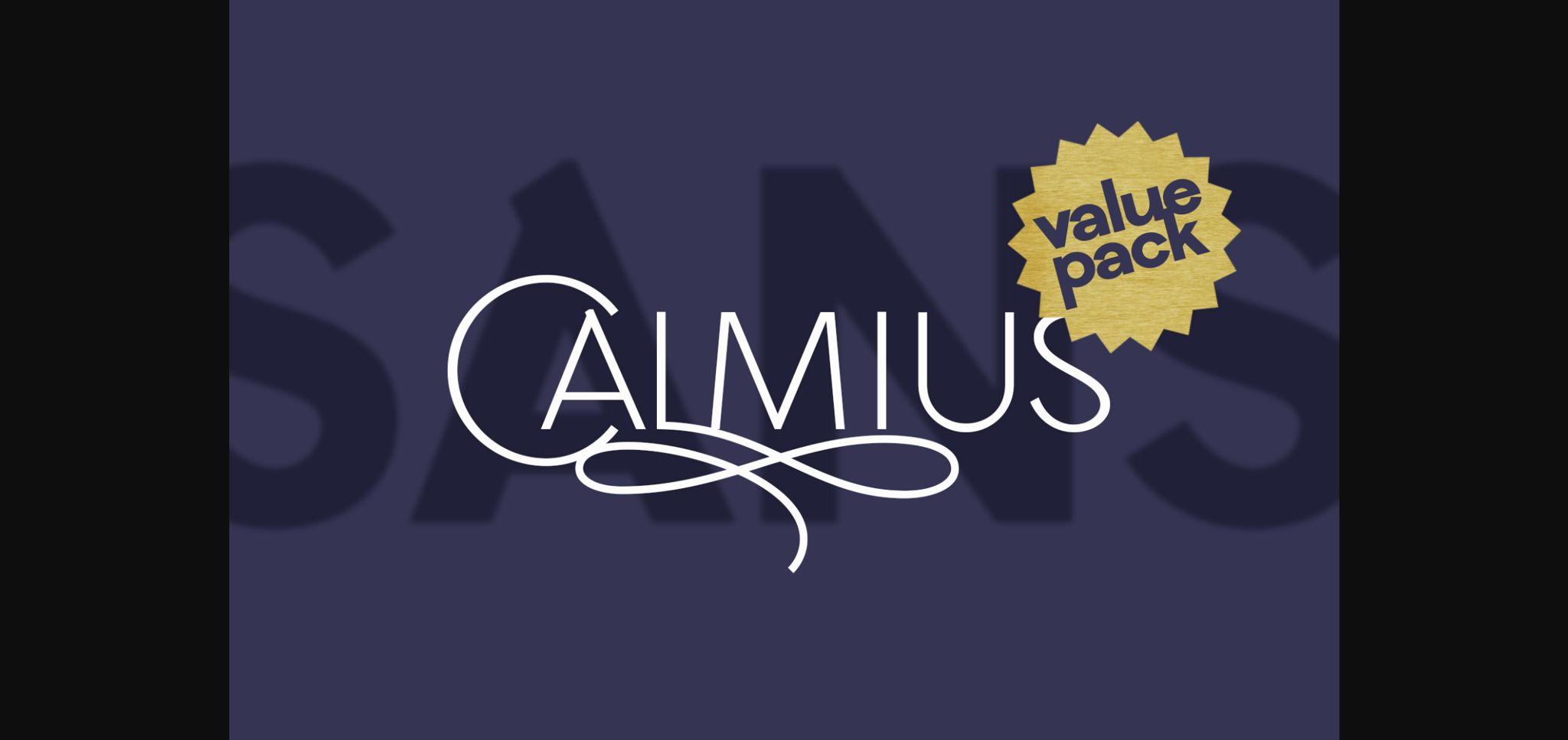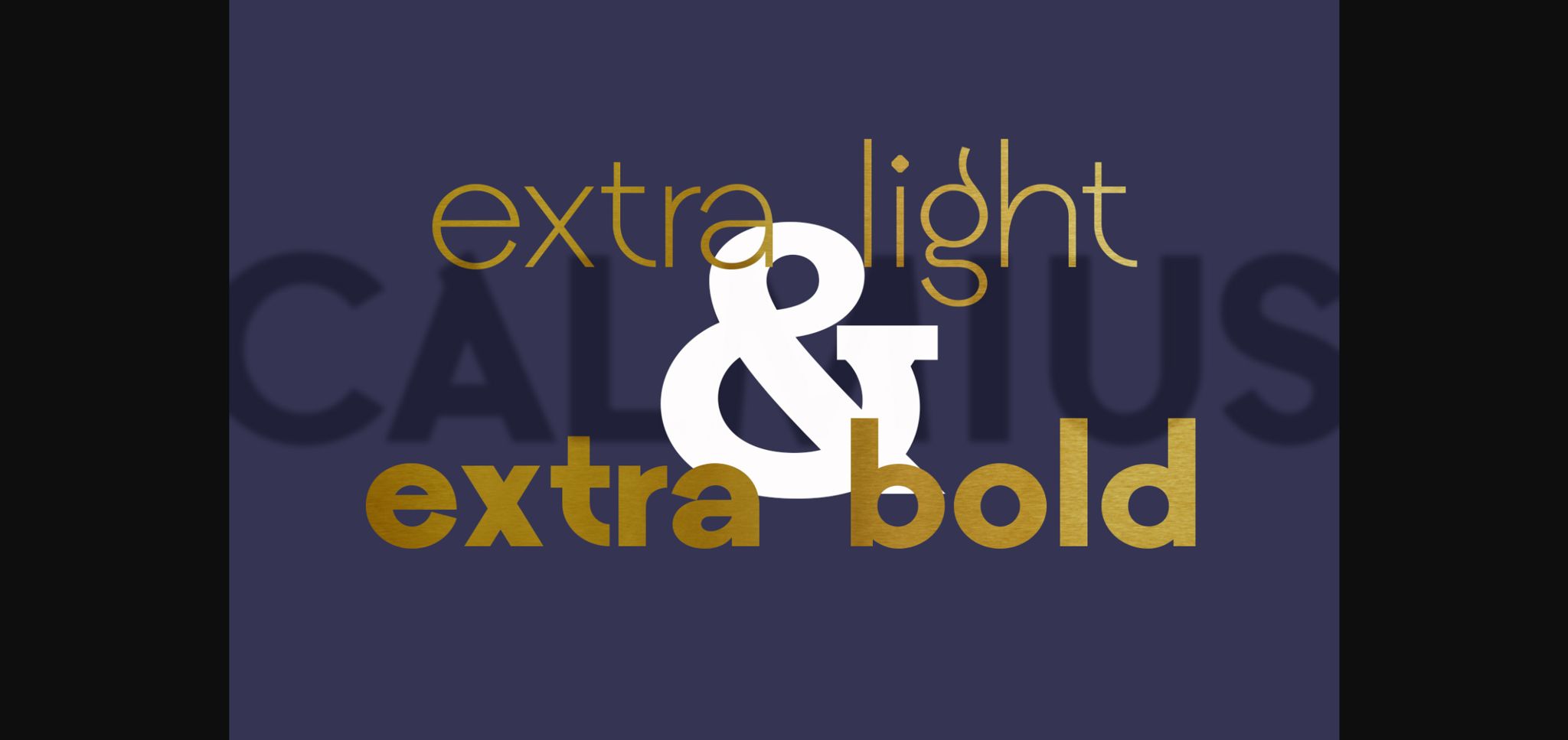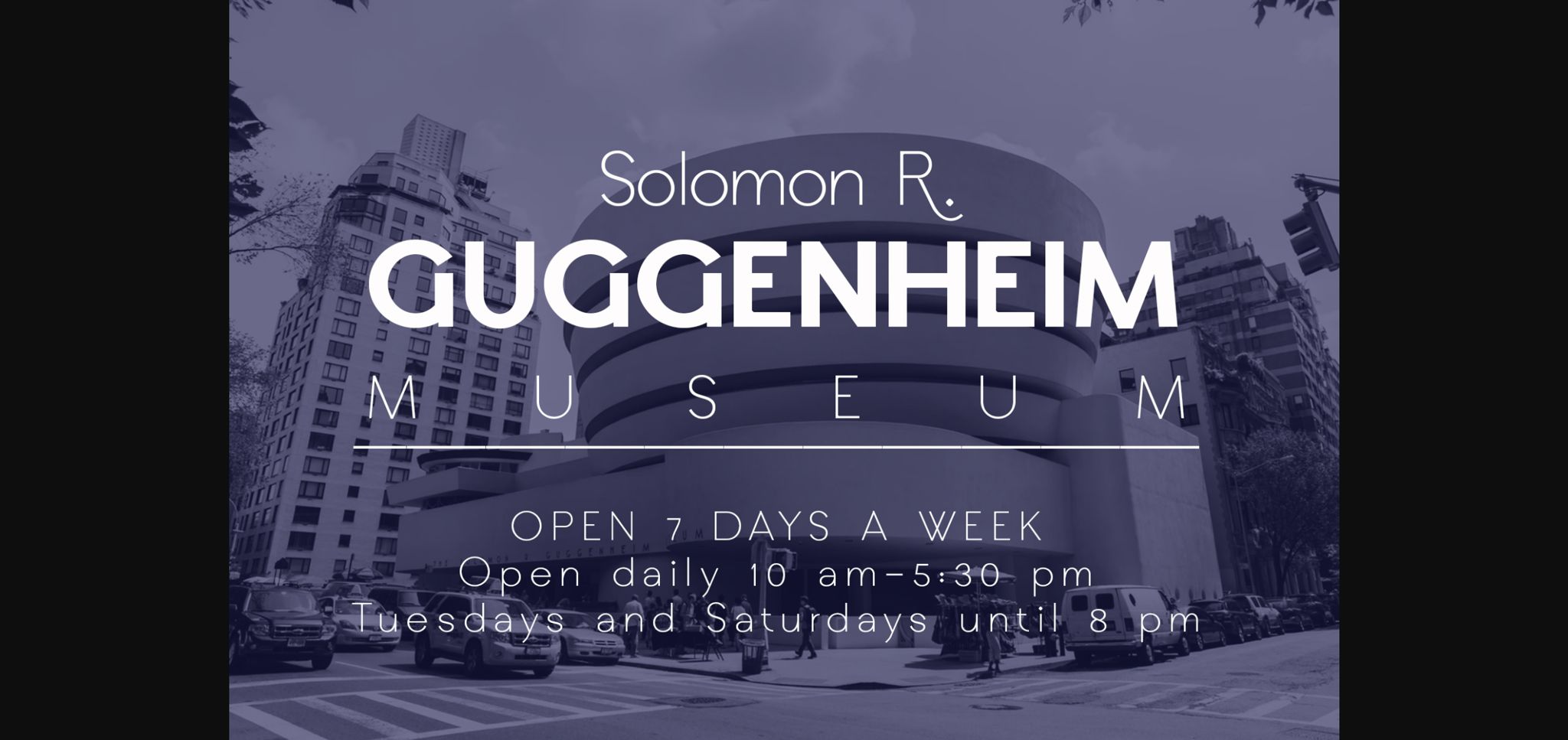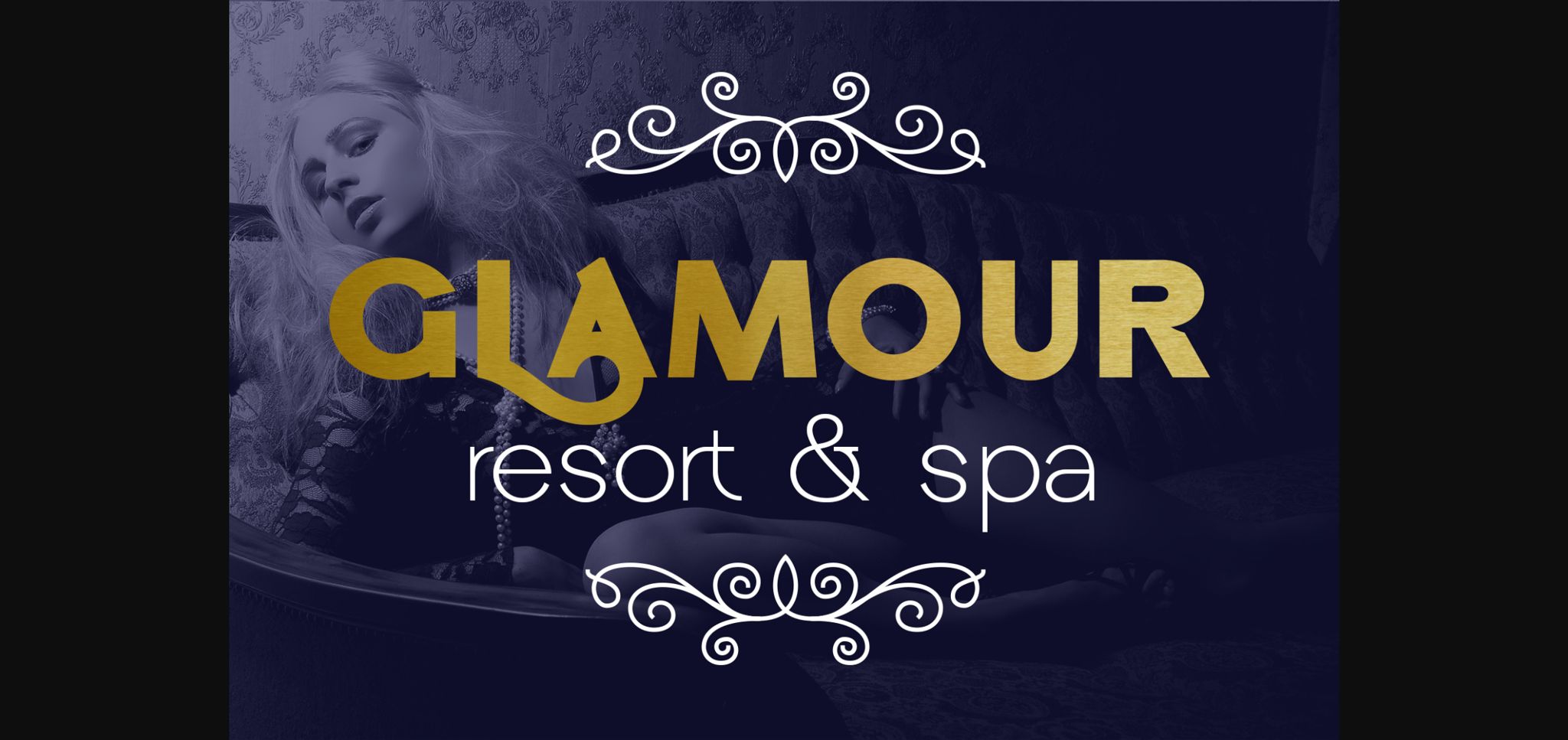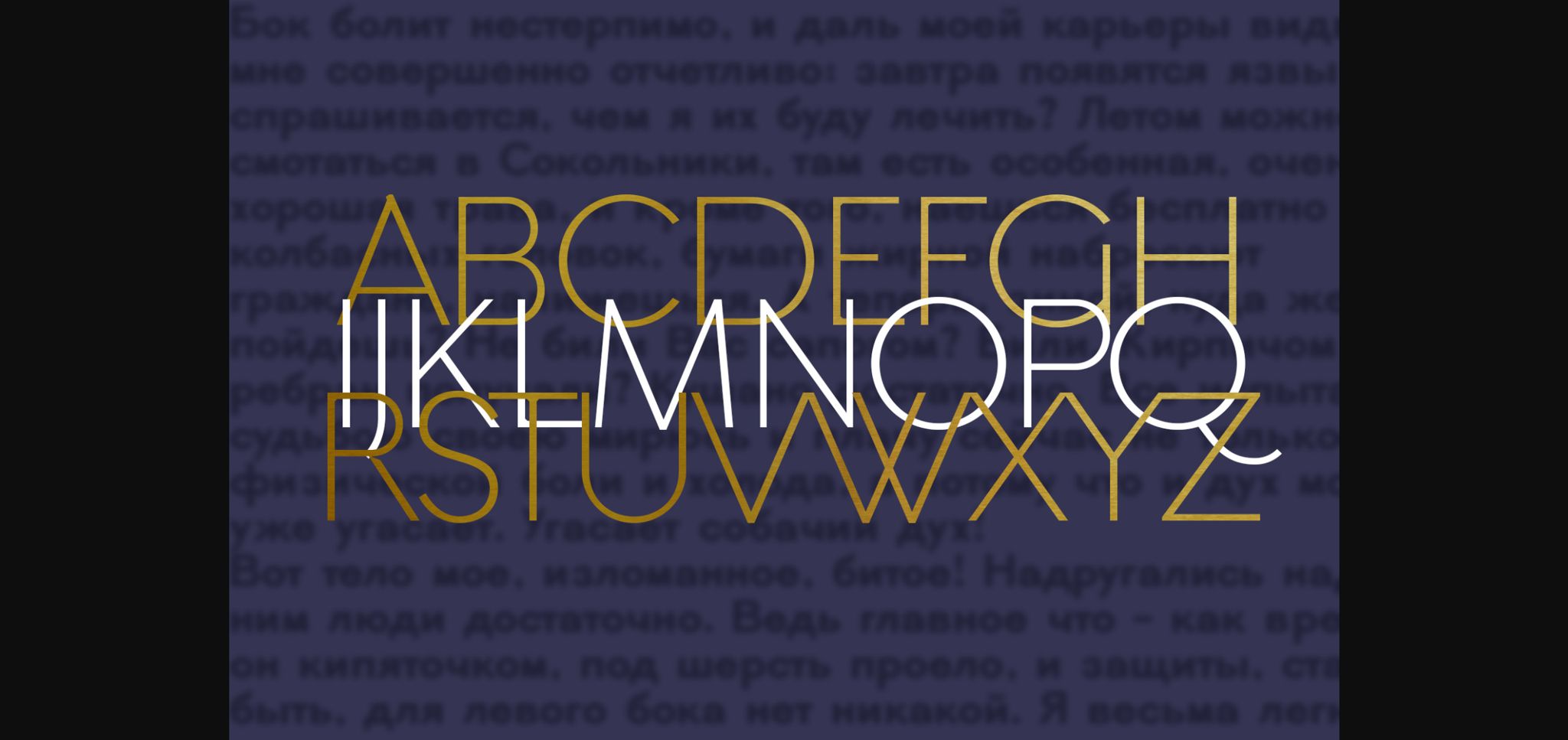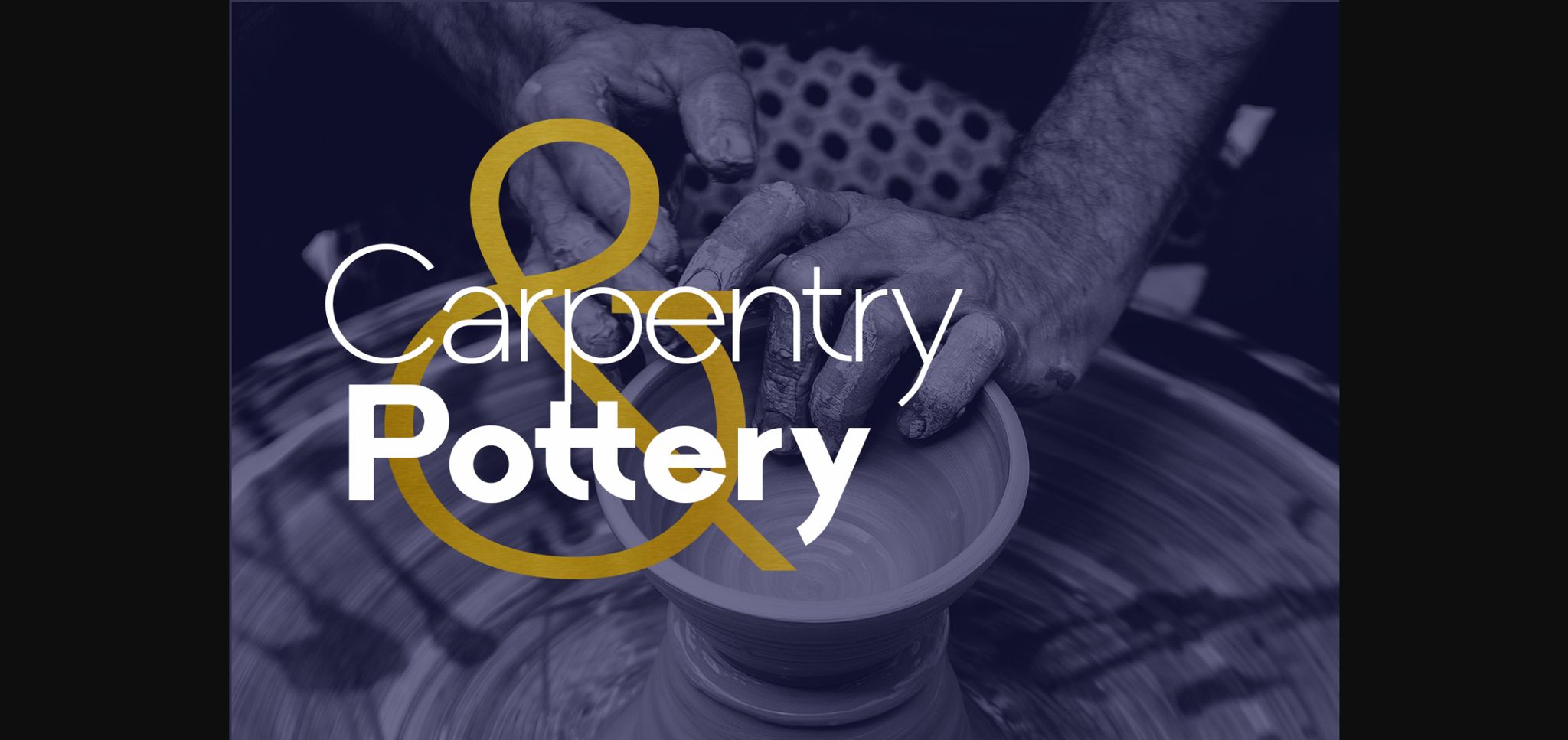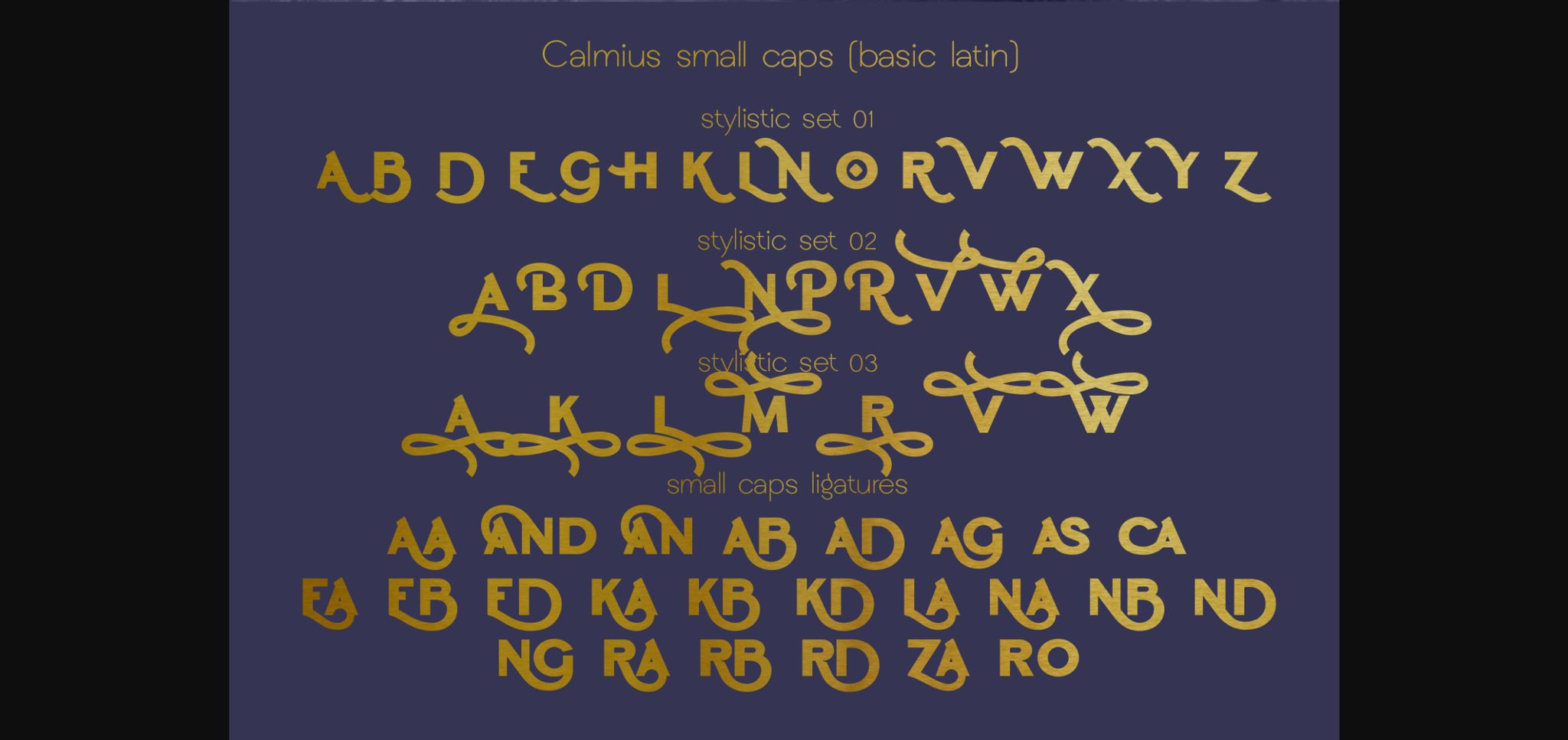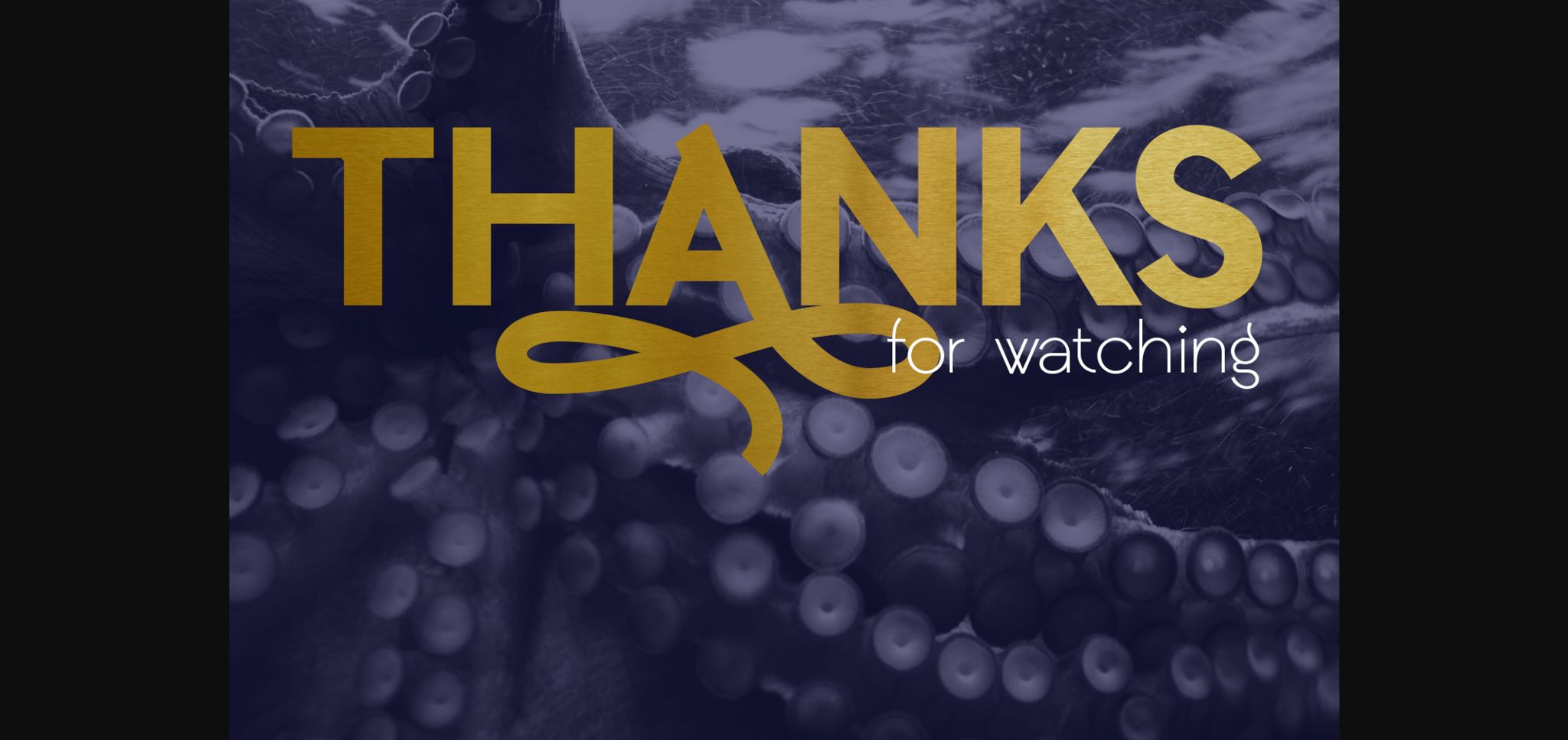
Calmius is modern and elegant sans-serif font. It is suitable for creating any branding, product packaging, invitation, quote, t-shirt, label, poster, logo that you wish to develop.